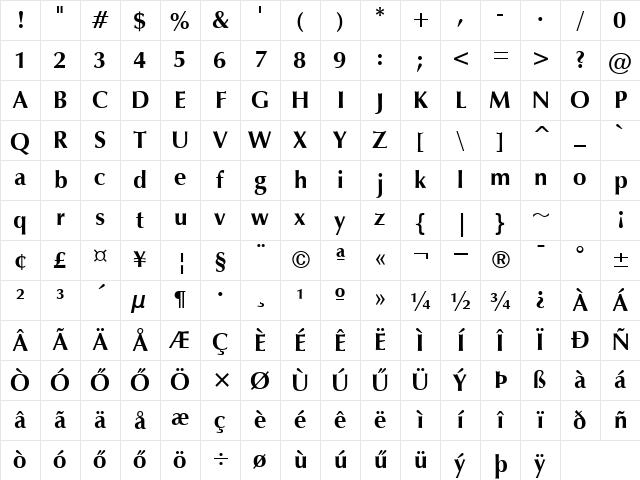
H_Zapf Humanist 601 BT Bold
H_Zapf Humanist 601 BT Family
Design Context for H_Zapf Humanist 601 BT
H_Zapf Humanist 601 BT is a composed and adaptable typeface that performs quietly and consistently across a wide range of design contexts. Its bold stroke weight gives it real presence on the page.